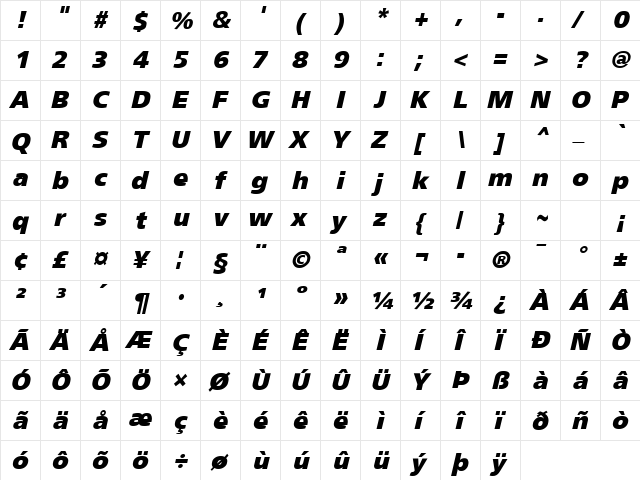
Weissach Black Oblique
Design Context for Weissach Black Typeface
Weissach Black is a composed and adaptable typeface that performs quietly and consistently across a wide range of design contexts. The slanted form adds forward momentum and visual energy.
Pro Tip: Try Weissach Black for annotation and caption copy alongside an upright companion — the contrast in angle creates a dynamic but ordered typographic system.